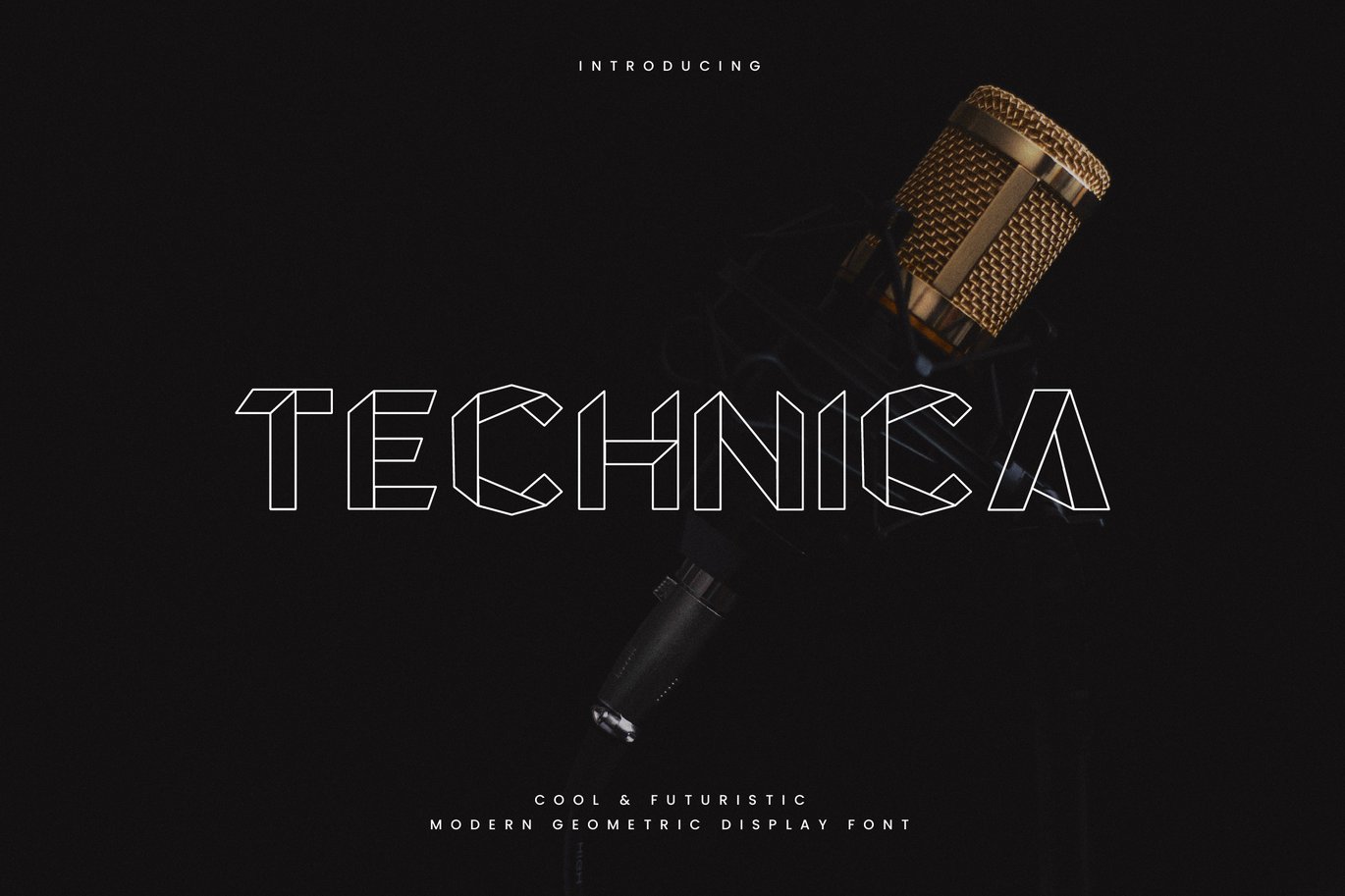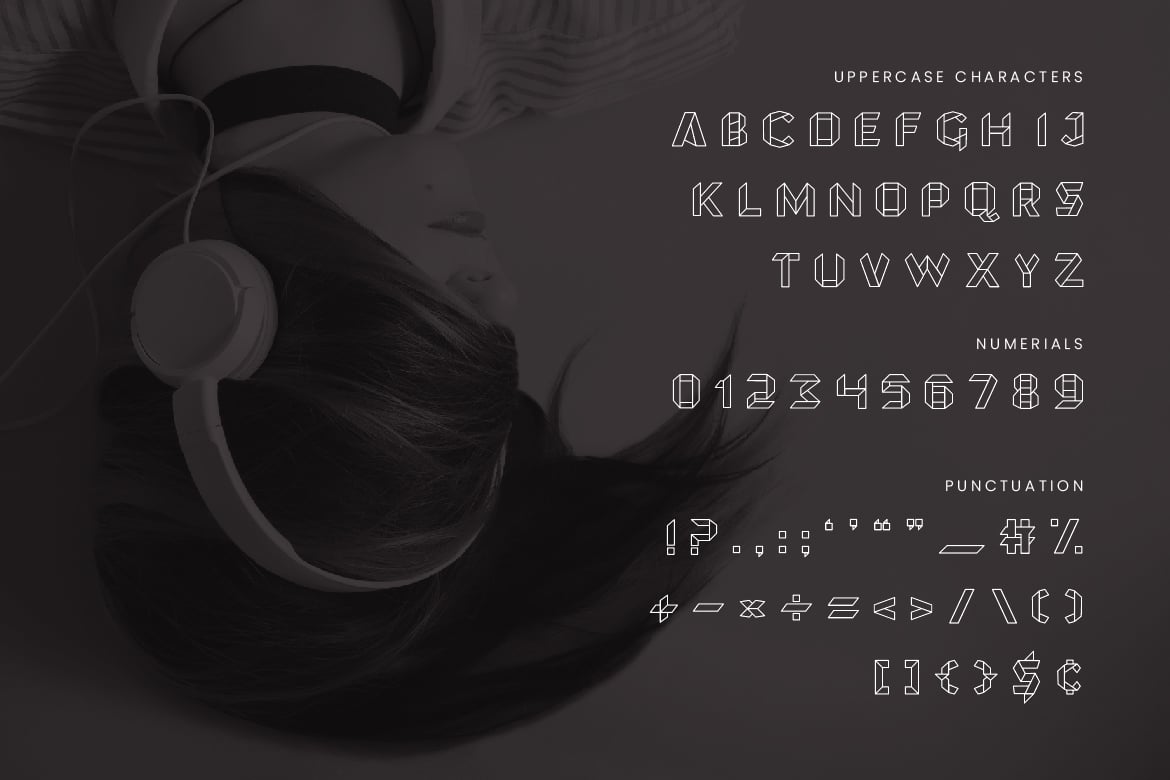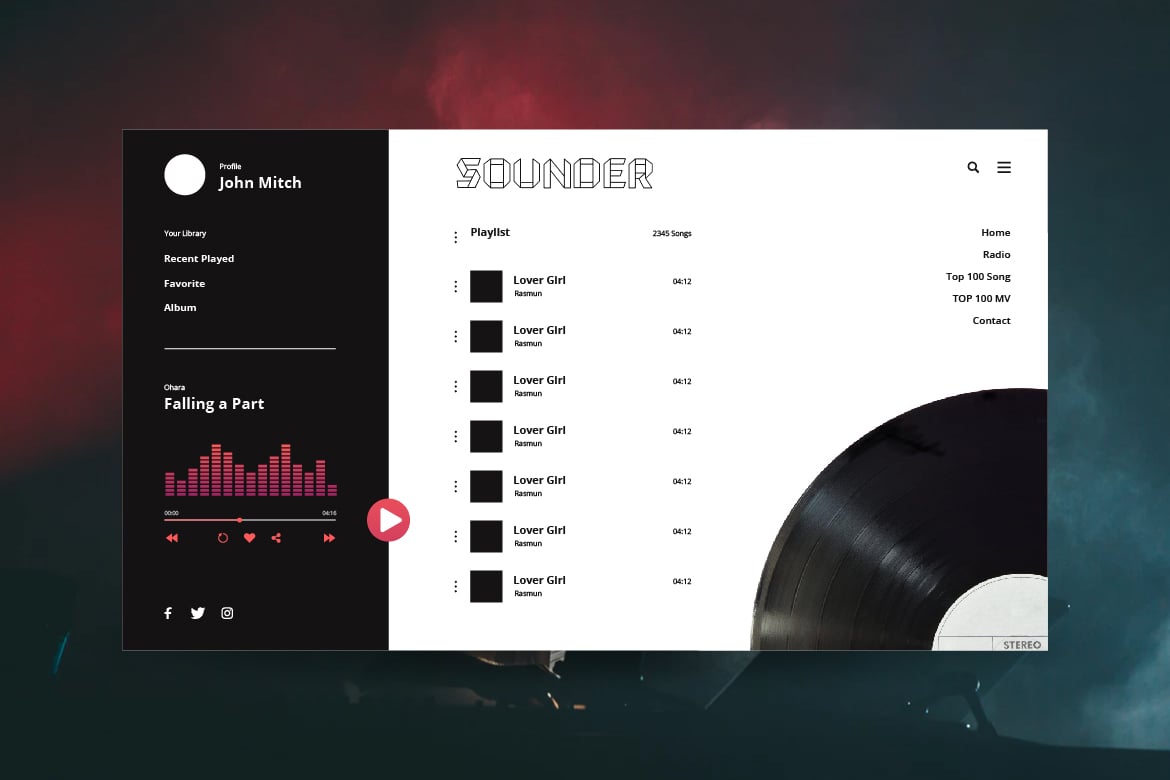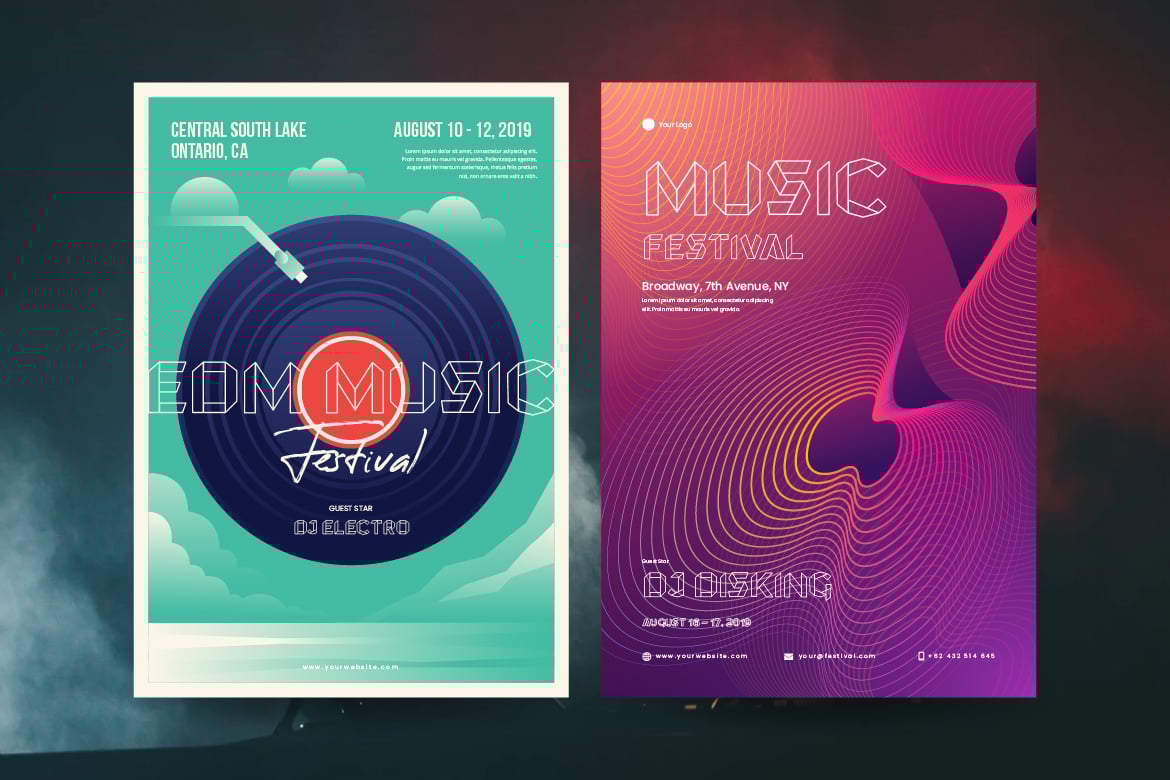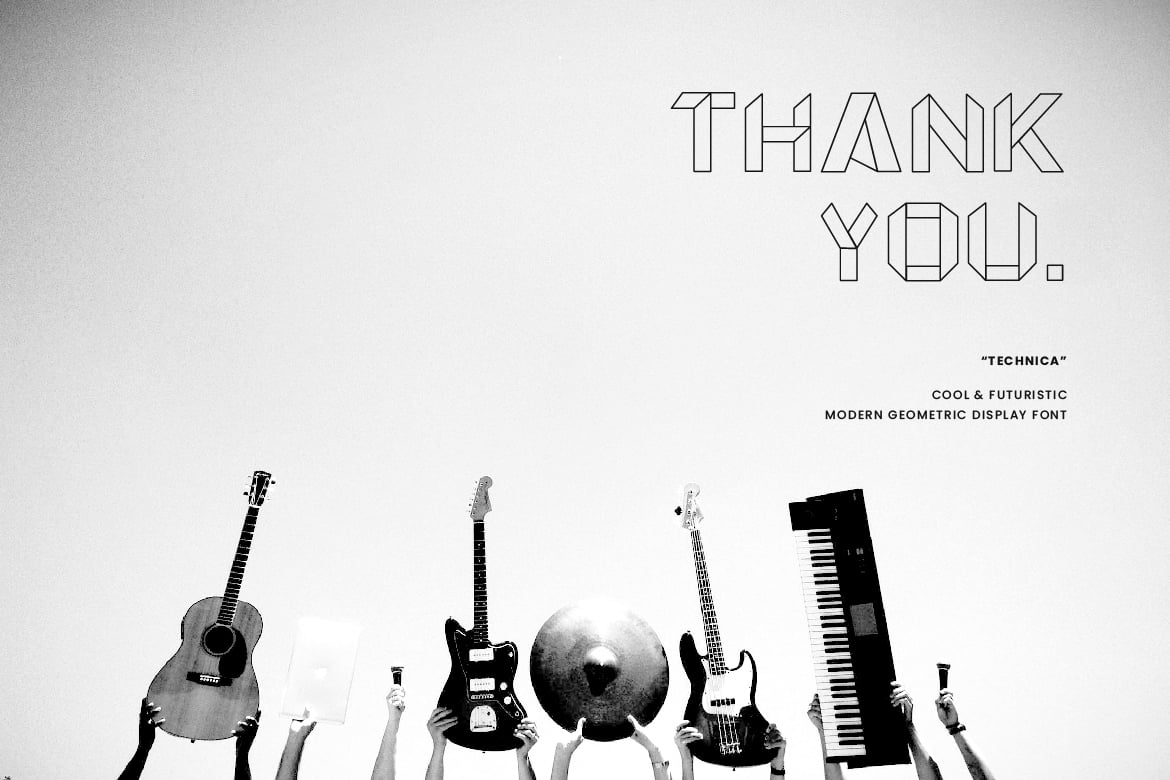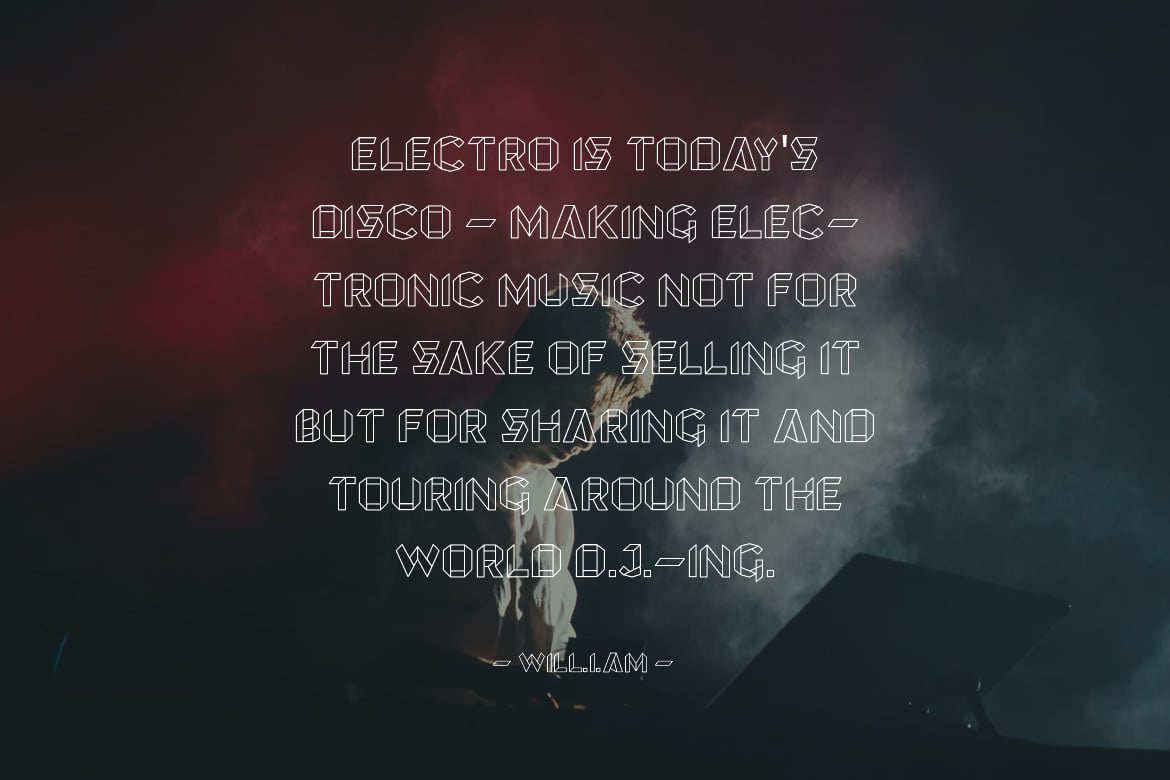
Technica – Modern Geometric Display Font
Introducing Technica font. Are you looking for a modern geometric display font that has a futuristic technology feeling? We can help! Try to download our Technica Geometric font. The font is suitable to use for many occasion such as game, music, movie title, brand, technology, space and many more π